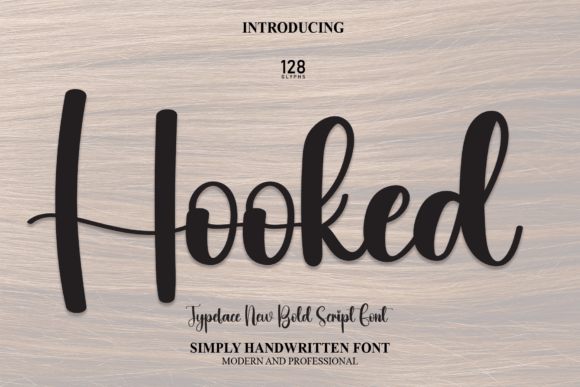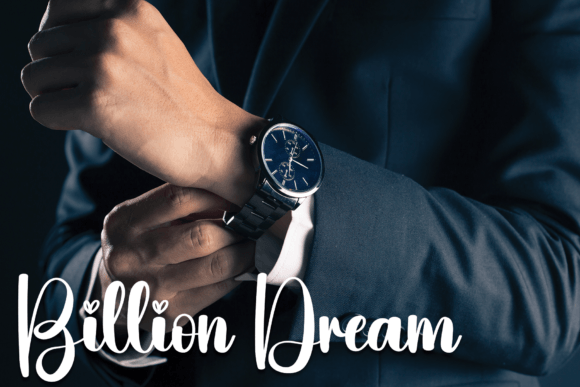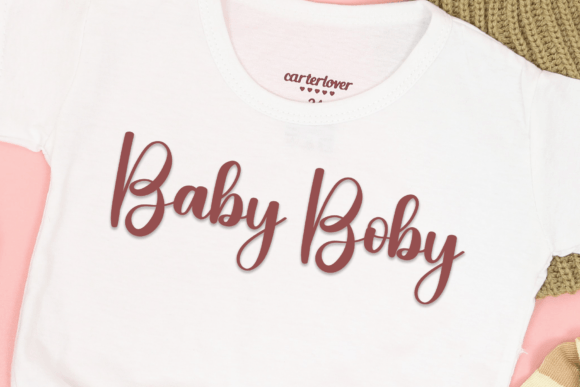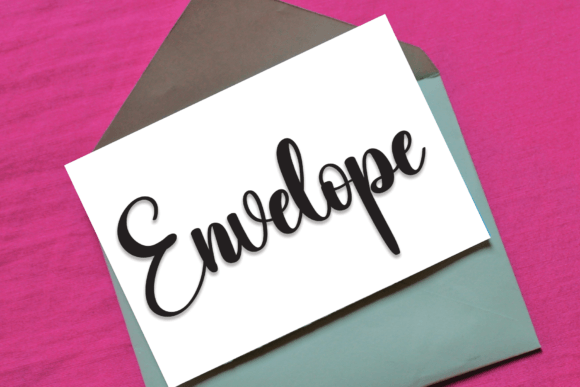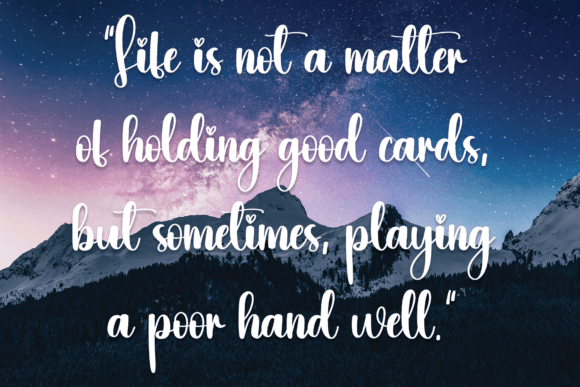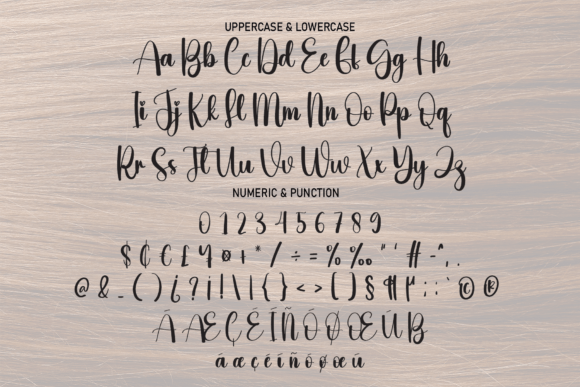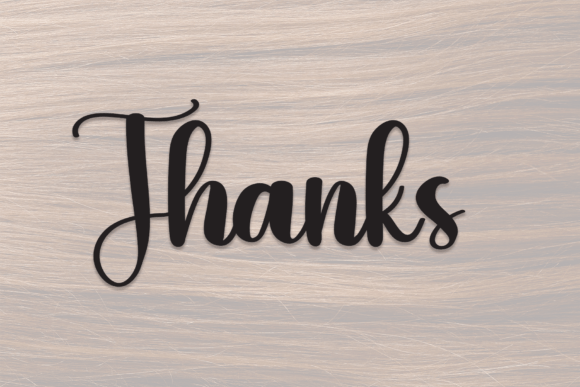
Hooked Font
About Hooked Font
Hookedfont is a beautifully crafted handwritten script that brings charm and elegance to a wide variety of design projects. This font is perfect for anyone looking to add a personal and sophisticated touch to their creative work. Whether you’re designing wedding invitations, thank you cards, quotes, greeting cards, logos, or business cards, Hookedfont delivers a stunning handwritten style that enhances your message.
Elegant and Charming Style
Hookedfont features carefully designed characters with smooth, flowing strokes that exude warmth and refinement. Its elegant style lends a natural, handwritten feel, making your projects stand out with authenticity and grace. The font’s delicate curves and balanced structure make it suitable for designs that require both beauty and readability.
Ideal for Wedding and Special Occasions
Hookedfont is especially well-suited for wedding-related projects. Its graceful appearance adds a romantic and heartfelt touch to invitations and thank-you cards, creating a memorable impression on your guests. The font’s sophisticated style ensures that every detail of your special day is beautifully reflected in your stationery.
Versatile for Branding and Business Use
Besides event design, Hookedfont is an excellent choice for logos and business cards. Its handwritten charm helps brands convey authenticity and friendliness, making it easier to connect with clients and customers. Whether you are crafting a personal brand or designing professional business materials, Hookedfont adds a unique and stylish flair.
Why Choose Hooked Font?
Hookedfont combines elegance, charm, and versatility in a handwritten script that elevates any design. Its timeless appeal makes it a valuable tool for designers who want to add a personal, handcrafted touch to wedding projects, branding, and more. Embrace Hookedfont to make your creations truly special and visually appealing.